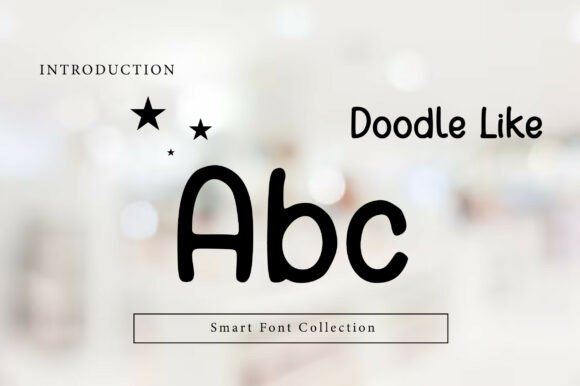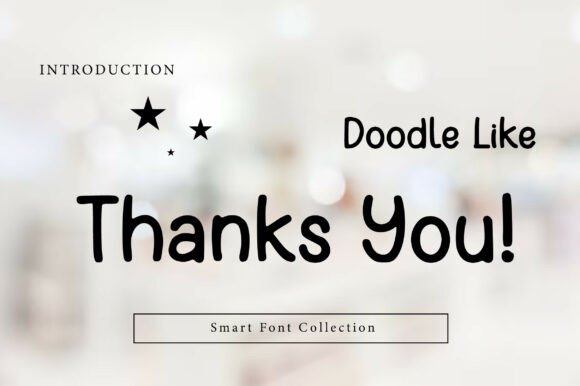
Introduction to Doodle Like Font
Doodle Like is a fun, casual handwritten doodle display font with smooth strokes, rounded ends, and an easygoing hand-drawn personality.
It feels playful, friendly, and imperfect in the best wayβ€”perfect for kids designs, stickers, notebooks, posters, social media graphics, packaging, labels, and cheerful branding Doodle Like brings a warm, sketchbook vibe that keeps typography light and approachable.
Key Features of Doodle Like Font
Why Choose Doodle Like Font?
Doodle Like Font offers exceptional quality and versatility, making it a valuable addition to your design toolkit. Whether you’re creating for personal projects or commercial use, Doodle Like Font delivers professional results.